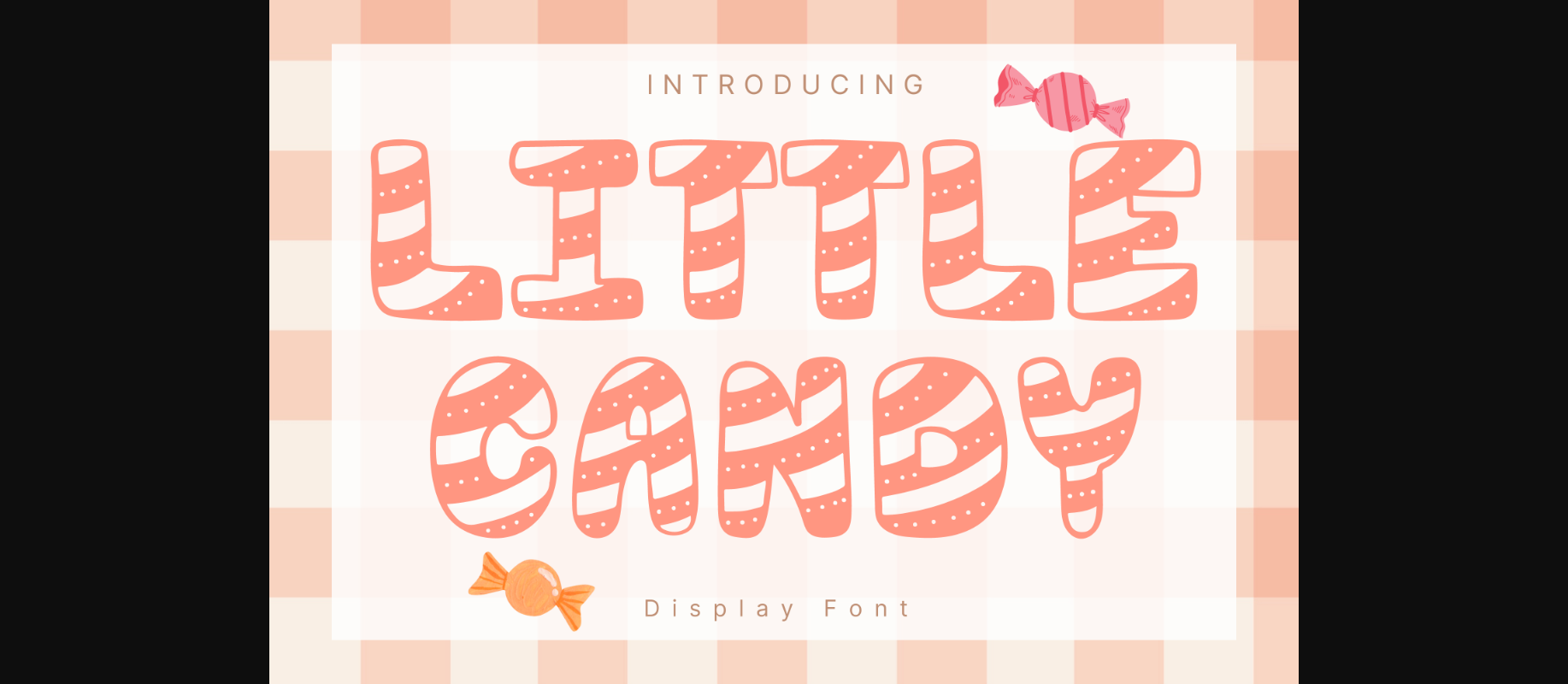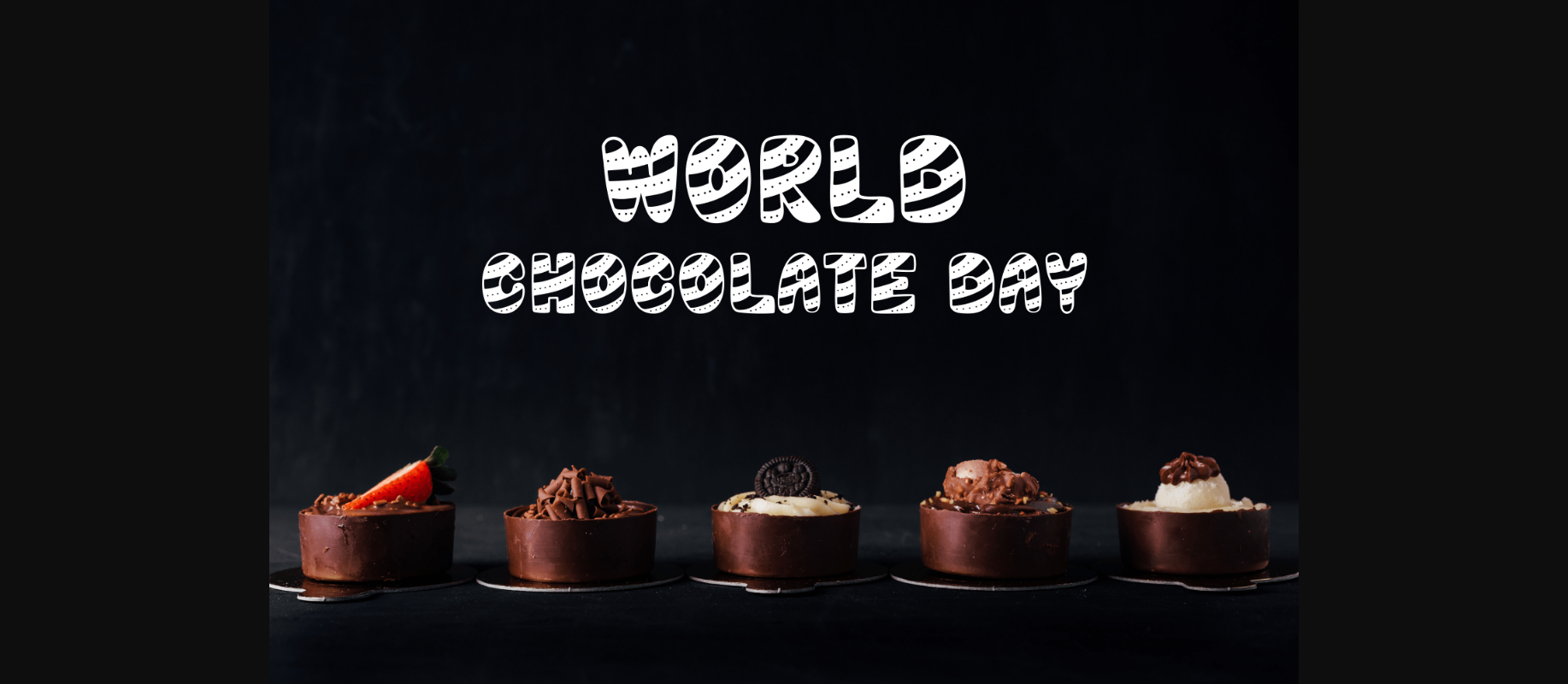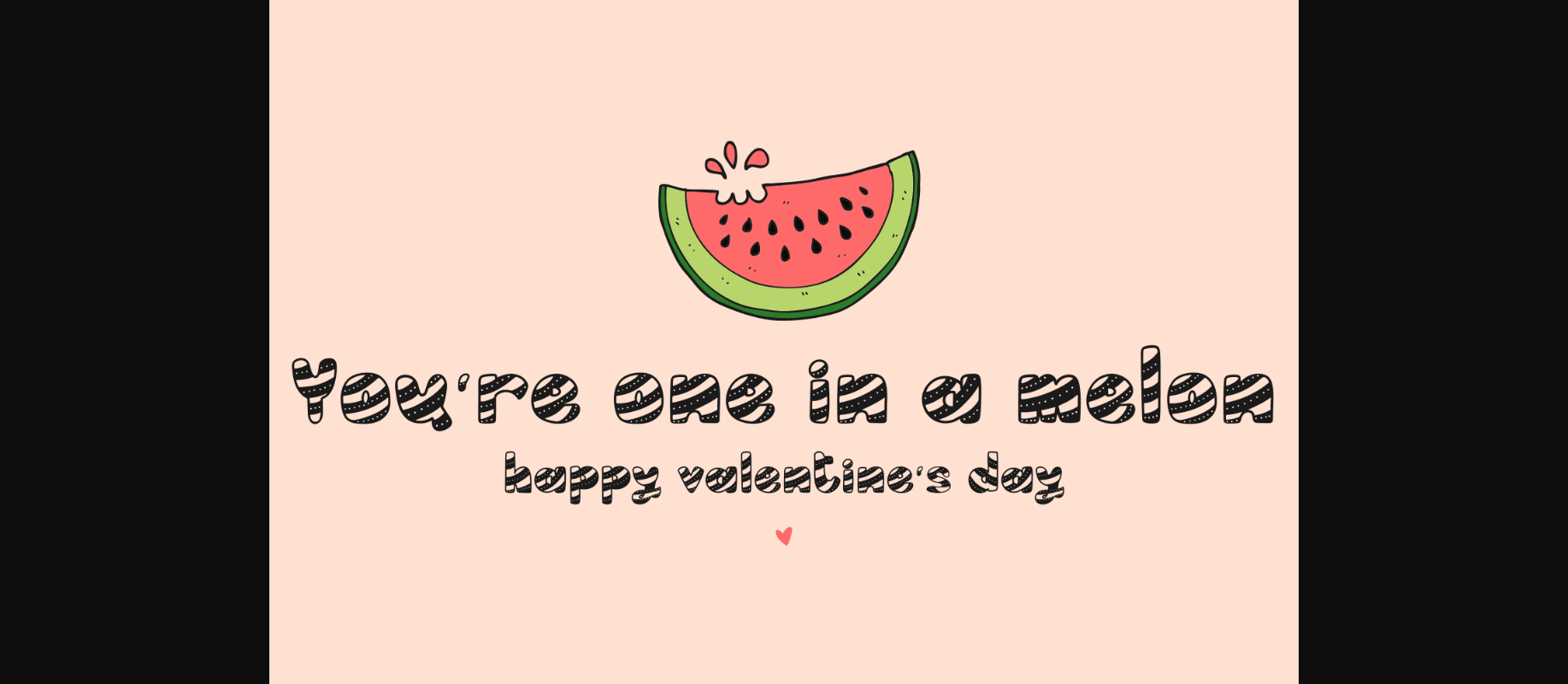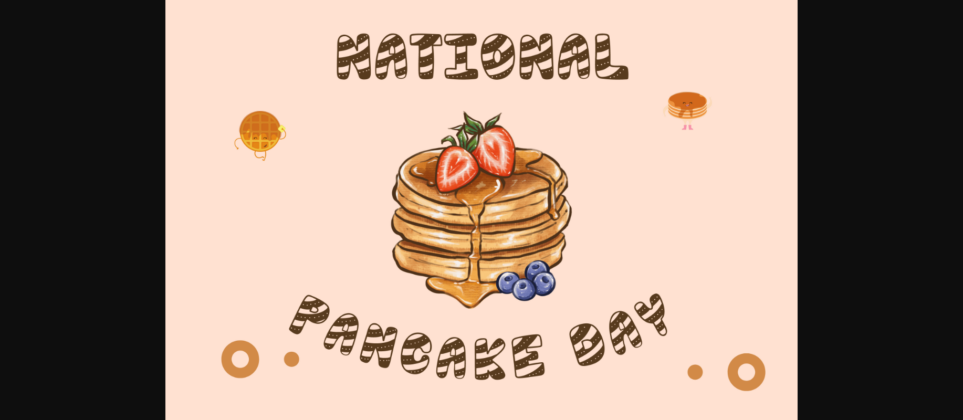
Little Candy Font
About Little Candy Font
Little Candy is a cute and delicious decorative font. It can easily be matched to an incredibly large set of projects, so add it to your creative ideas and notice how it makes them stand out!